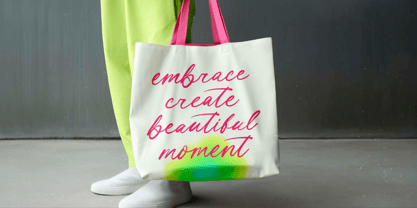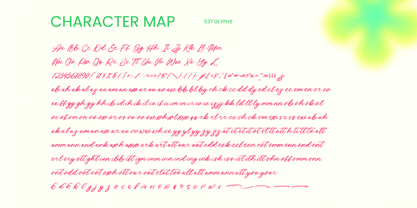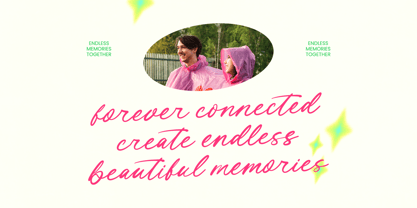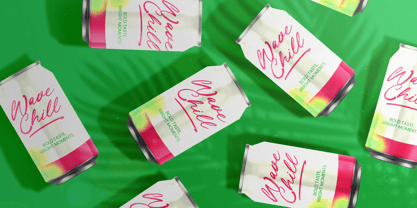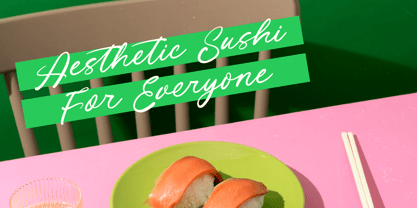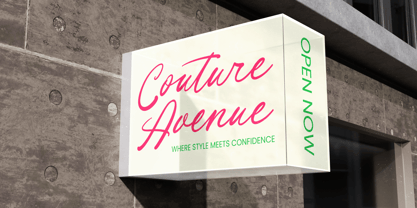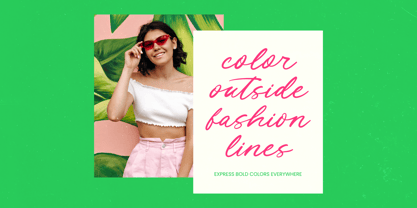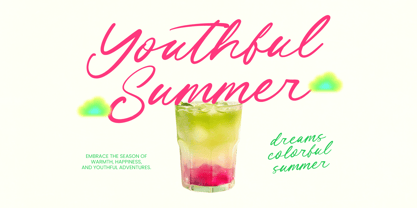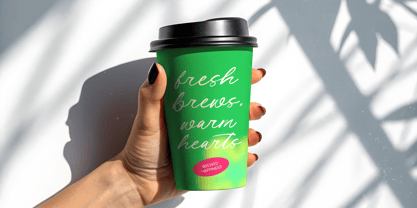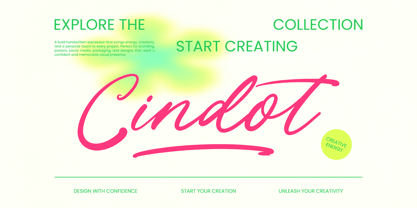
Cindot
von Letterena Studios
Die Schriftfamilie Cindot wurde von Heru Utama Putra entworfen und von Letterena Studios veröffentlicht. Cindot enthält 2 Stile und Familienpaketoptionen. Mehr über diese Familie
Cindot - Bold Handwritten Font
Elevate your creative vision with a typeface that embodies raw energy and sophisticated flair. Cindot - Bold Handwritten Font is a dynamic script designed to command attention while maintaining a personal, artisan touch. Crafted by Letterena Studios, this bold handwritten font features a fluid, organic stroke that brings an authentic and human-centric feel to digital and print media. Its expressive nature and high-impact silhouettes ensure that every word resonates with confidence and artistic integrity.
Designer: Heru Utama Putra
Foundry: Letterena Studios